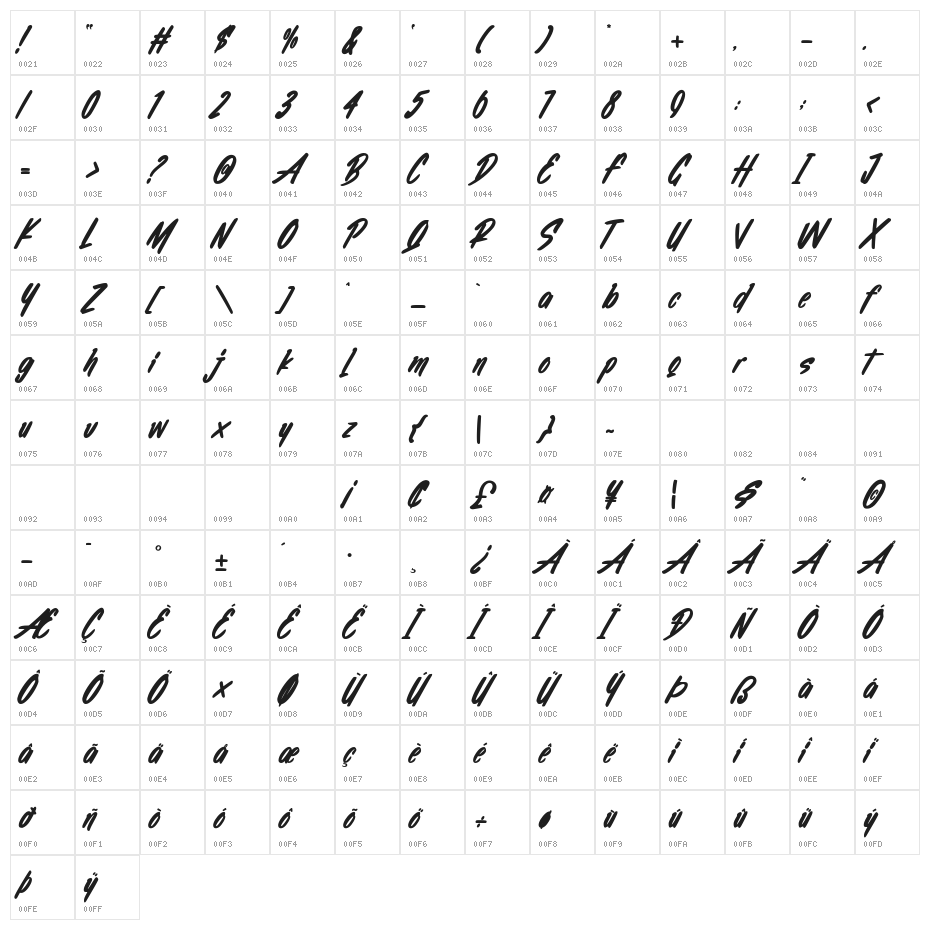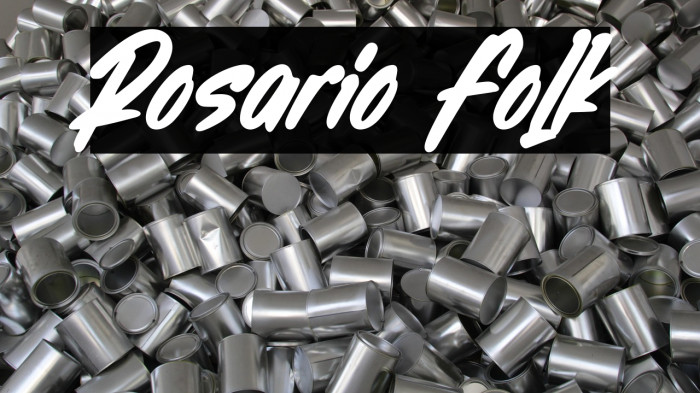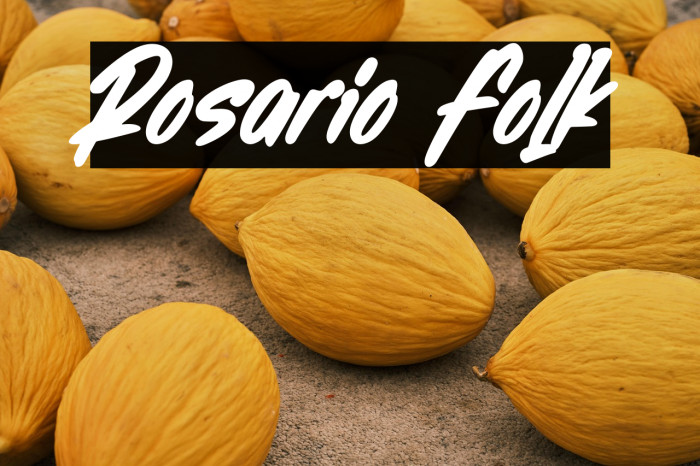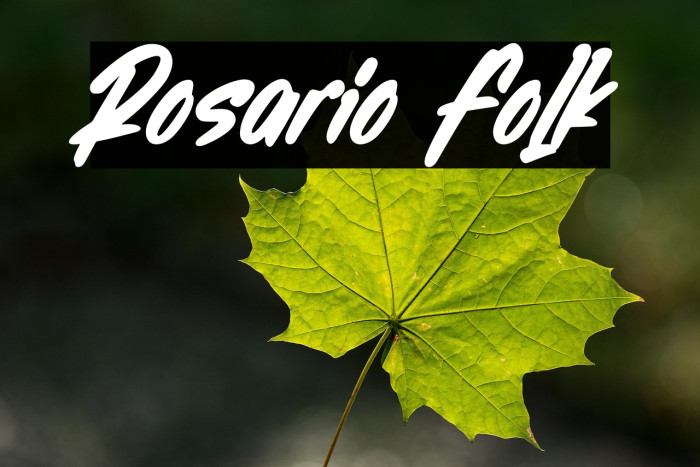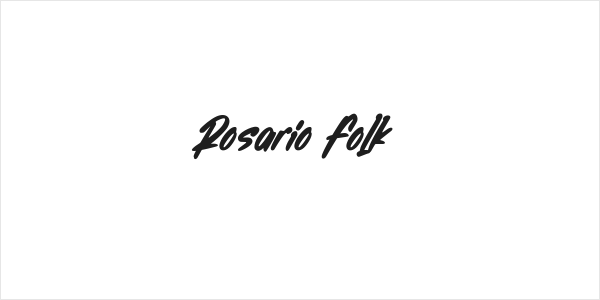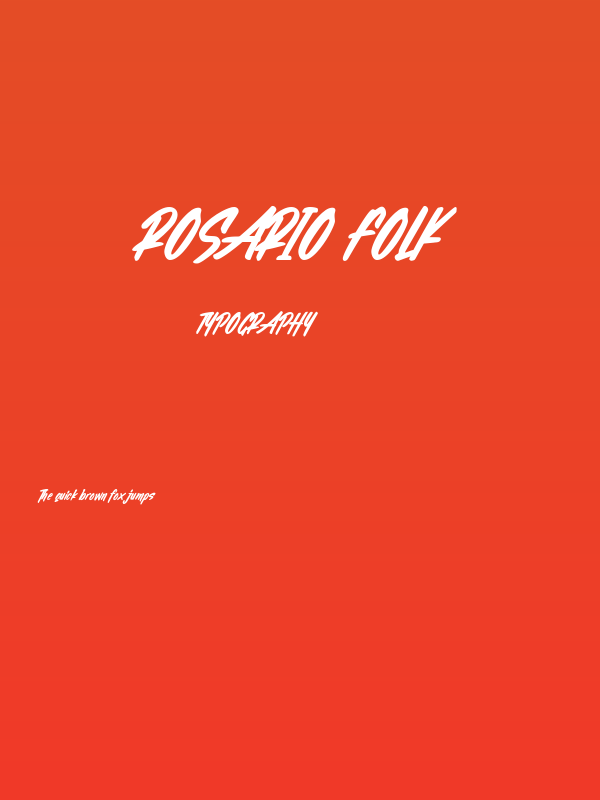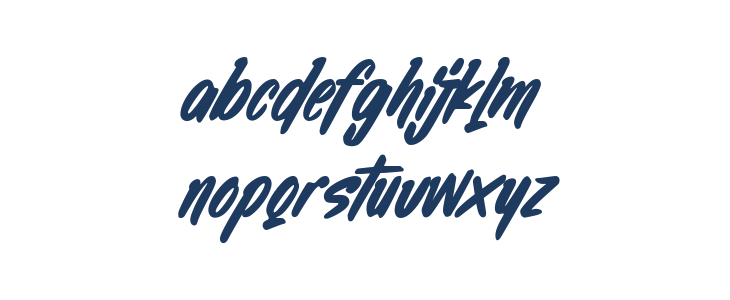
Rosario Folk Font
Rosario Folk Description
This font features a bold and dynamic script style with a strong, flowing character. The letters are interconnected, giving it a sense of movement and energy. The strokes are thick and consistent, with a slight slant that adds to its casual and informal feel. The uppercase letters are prominent and commanding, while the lowercase letters maintain a cohesive flow. The numerals and special characters are designed to match the overall style, making it versatile for various uses. Its bold nature makes it stand out, perfect for eye-catching designs.